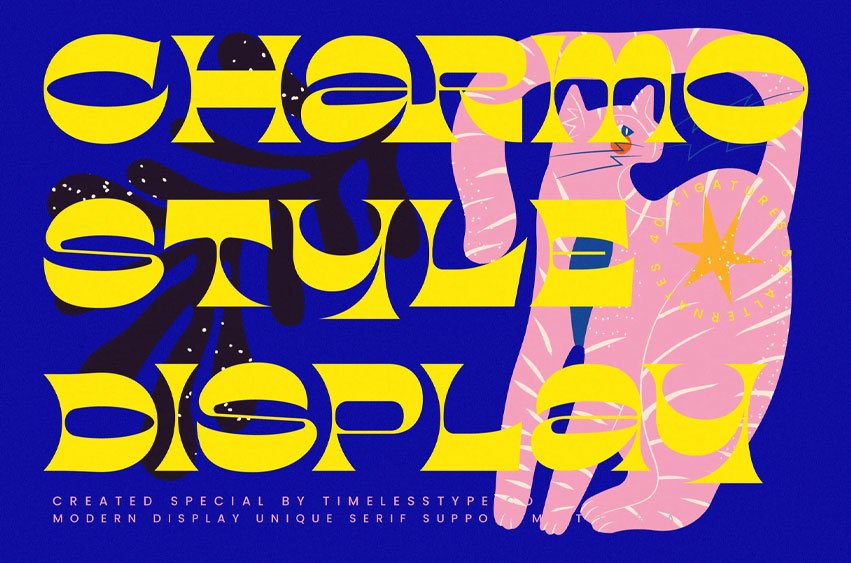
Charmo Style Font Display is a bold and unique serif font crafted with striking curves and playful proportions. Its experimental letterforms and artistic details make it a standout choice for creative projects that need strong personality and modern flair. Perfect for posters, branding, packaging, social media graphics, and editorial headlines, this display serif font adds a touch of drama and originality while remaining versatile across both print and digital designs.